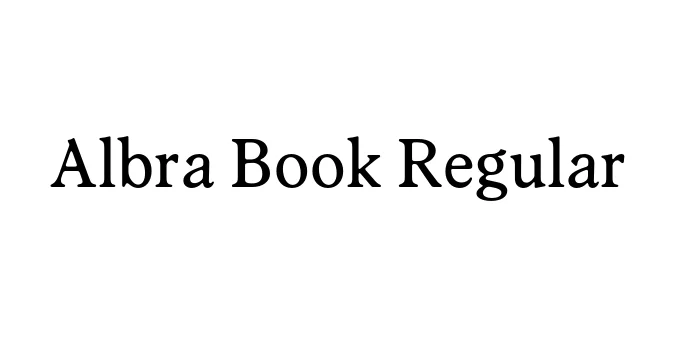
Albra Book Regular
Designed by Bumbum Type
Albra Book Regular is a sophisticated serif typeface crafted by the Bumbum Type foundry. It represents a refined balance between classic calligraphic traditions and contemporary digital design. The font is defined by its elegant high-contrast strokes and gracefully tapered terminals, which create a distinctive rhythmic quality in long-form text. The 'Book' weight is meticulously engineered to provide optimal legibility and clarity, making it a versatile workhorse for complex typographic layouts.
Part of the larger Albra superfamily, this weight serves as the foundational choice for designers who require a modern serif that retains a human touch. Its architecture allows it to scale beautifully from small body copy to larger subheadings without losing its character. By blending the authority of historical serifs with a clean, sharp aesthetic, Albra Book Regular has established itself as a premier choice for editorial design, high-end branding, and digital publishing environments.
Albra Book Regular Best Uses
Optimized for magazine layouts and long-form storytelling where elegance and readability are paramount.
Suitable for luxury brand identities that require a sophisticated and timeless typographic voice.
Designed to provide a comfortable reading experience for printed books and digital e-readers.
Elevates the visual hierarchy of professional blogs and high-end portfolio websites.